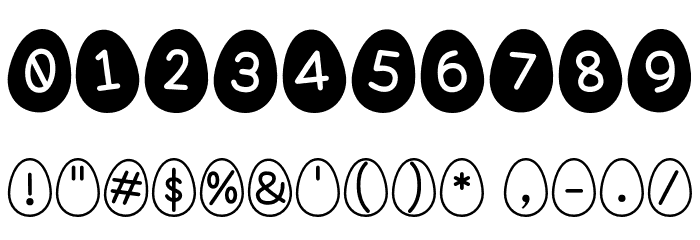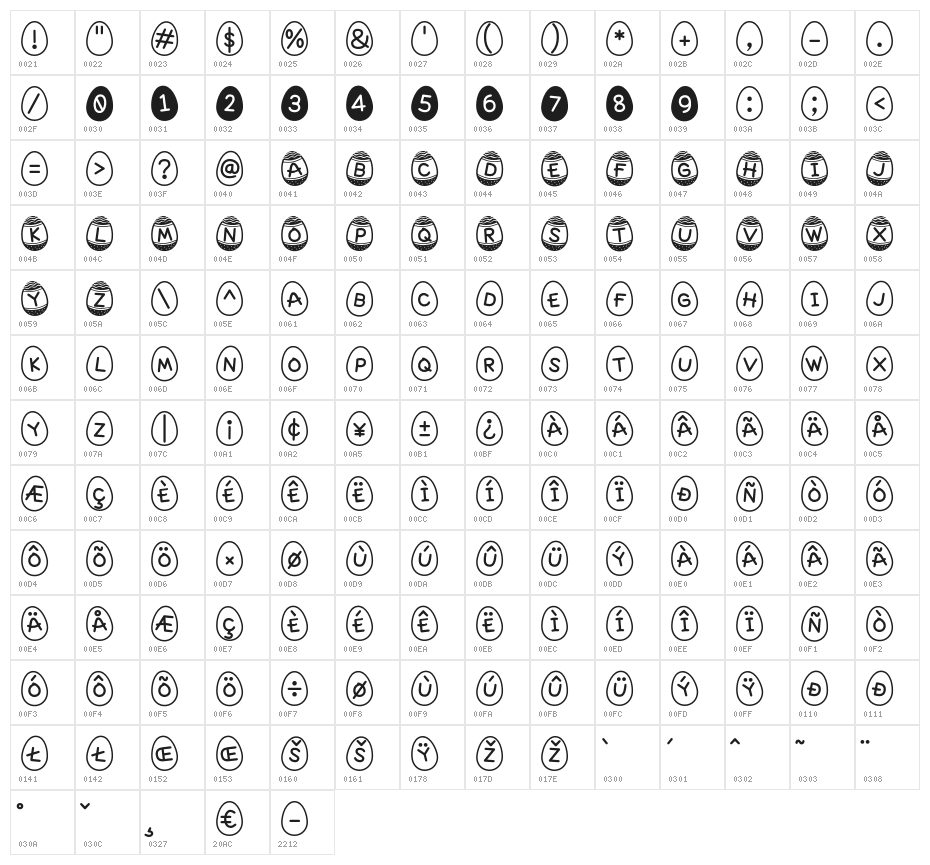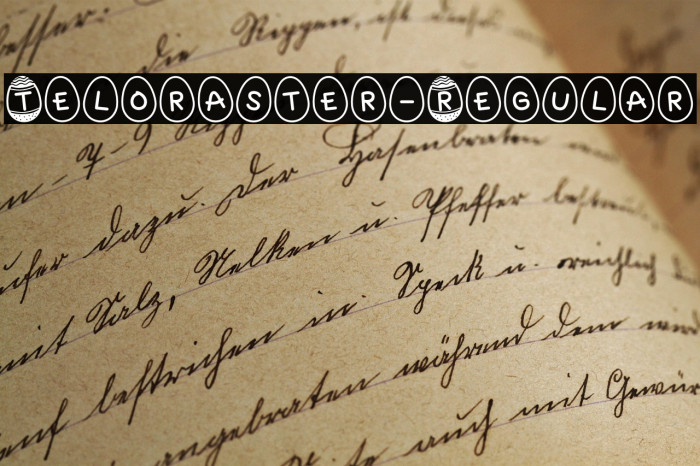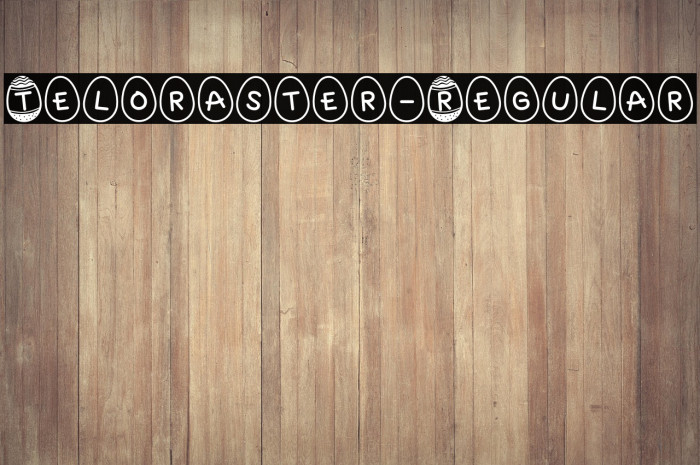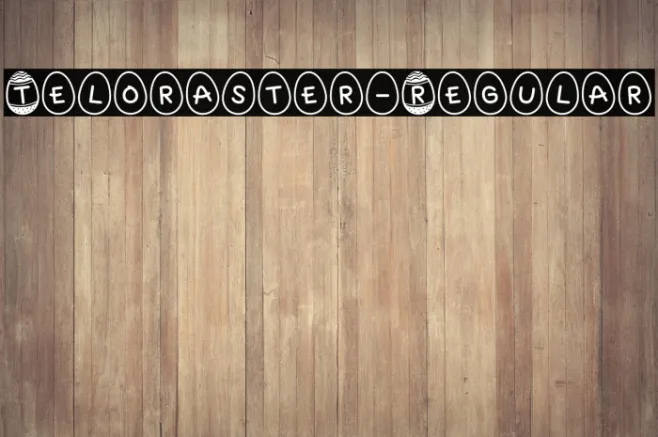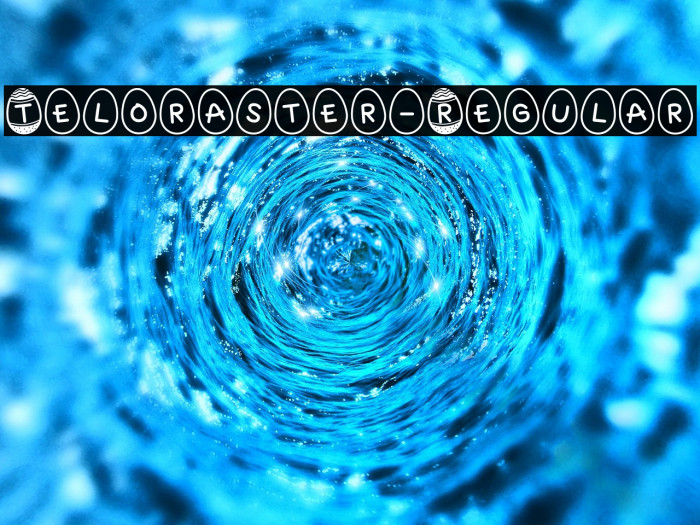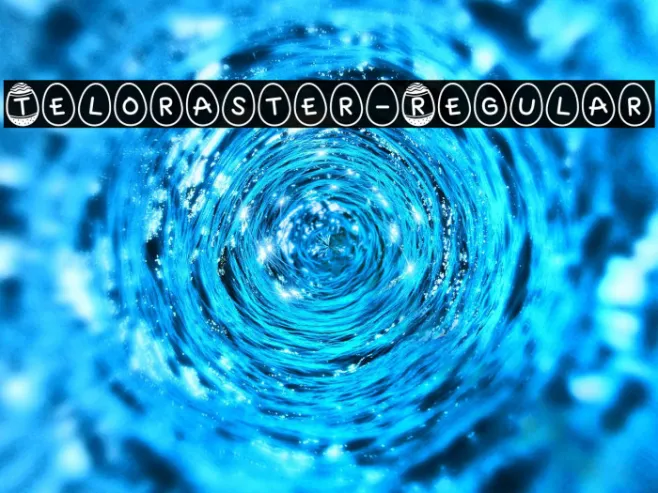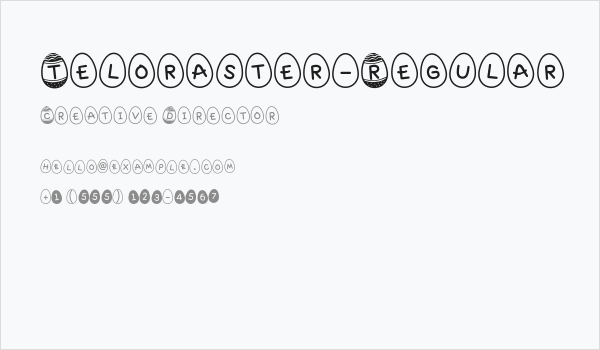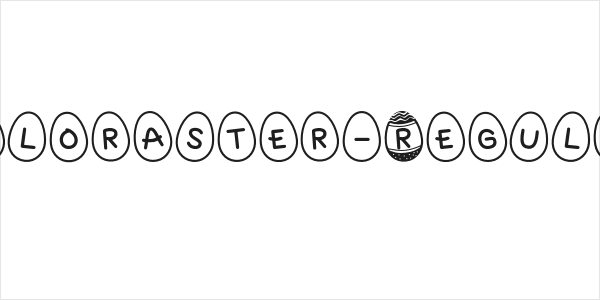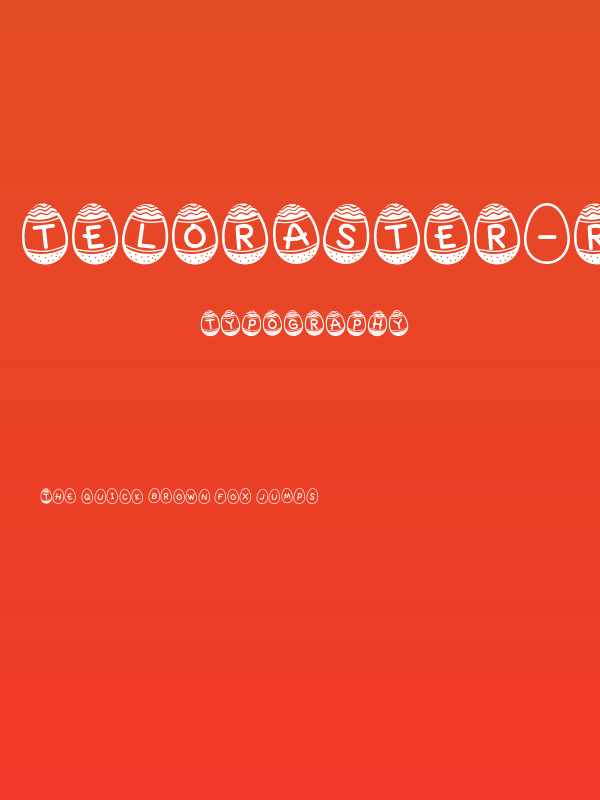
Teloraster-Regular Font
Teloraster-Regular Description
This playful and decorative font features characters enclosed within egg-shaped outlines, giving it a whimsical and unique appearance. The uppercase and lowercase letters, as well as numbers and special characters, are all presented in this distinctive style. The font's design is characterized by its bold, rounded shapes and consistent line thickness, creating a cohesive and eye-catching look. The quirky nature of the font makes it ideal for projects that require a fun and informal touch. Its consistent character spacing and medium contrast in stroke thickness add to its readability while maintaining its decorative appeal.
| Proposed Projects | Ideal for children's books, Easter-themed designs, playful branding, and greeting cards. |